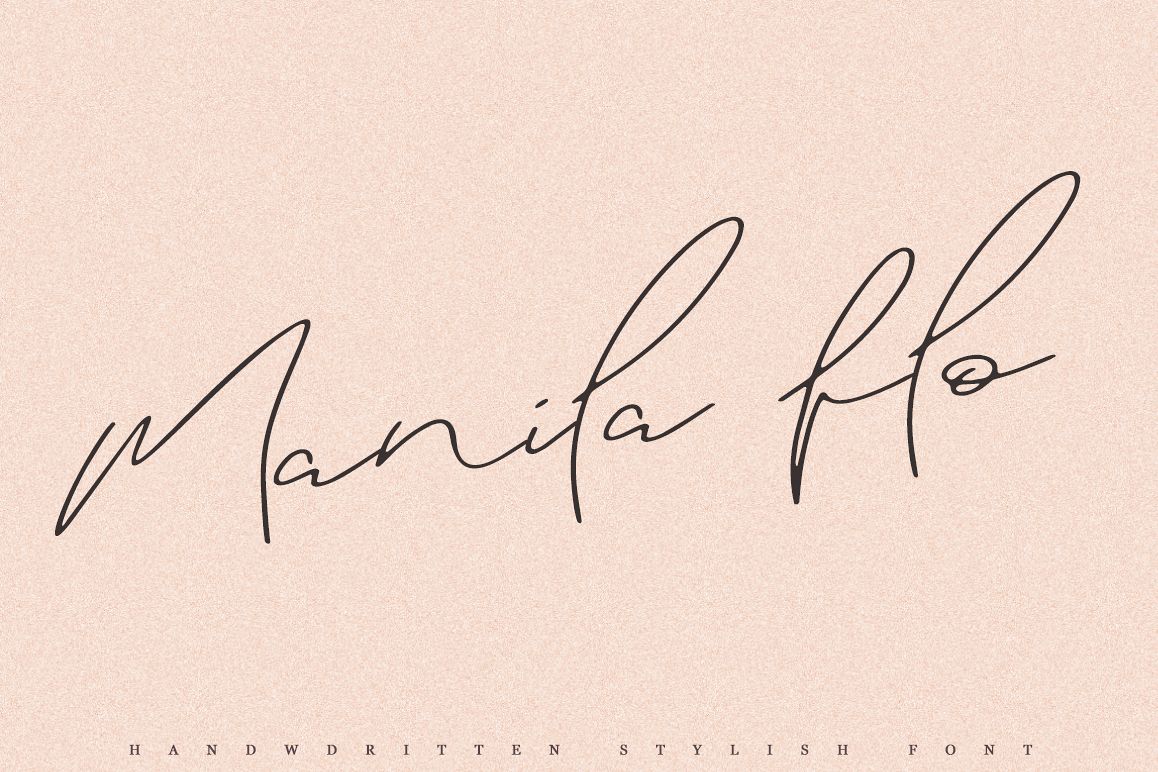
Manila Flo
Manila Flo Handwritten Style font
This handwritten script has been attentively written, with gentle curves to produce a font thats completely distinctive and original. Perfect for adding a elegant and unique touch to your lettering projects and branding
Also with their help, you can create a Wedding lettering or beautiful frame for your home. Or just use for your small business, book covers, stationery, marketing, magazines and more.